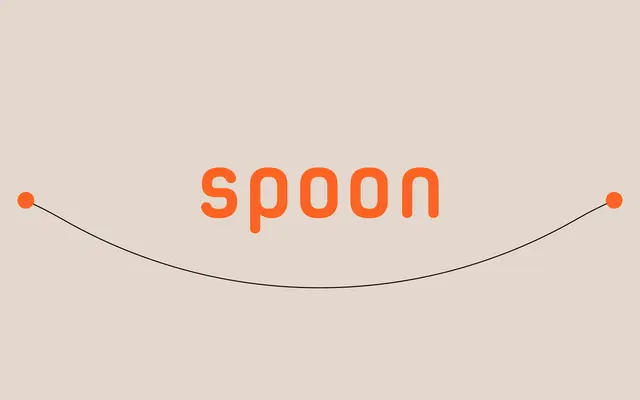
A geometric sans with humanistic softening across seven weights, suitable for both display and body text use.
Spoon pairs a minimal geometric letterform structure with humanistic outlines that lend a subtle, approachable warmth to the design. Seven weights ship with matching italics, and diacritic support covers most European languages throughout. The result sits comfortably across both headline and body text settings where a clean but not cold tone is needed.
The foundry describes a geometric skeleton softened by humanistic outlines with subtle handwritten influence, placing it between geometric and humanist sans-serif traditions.